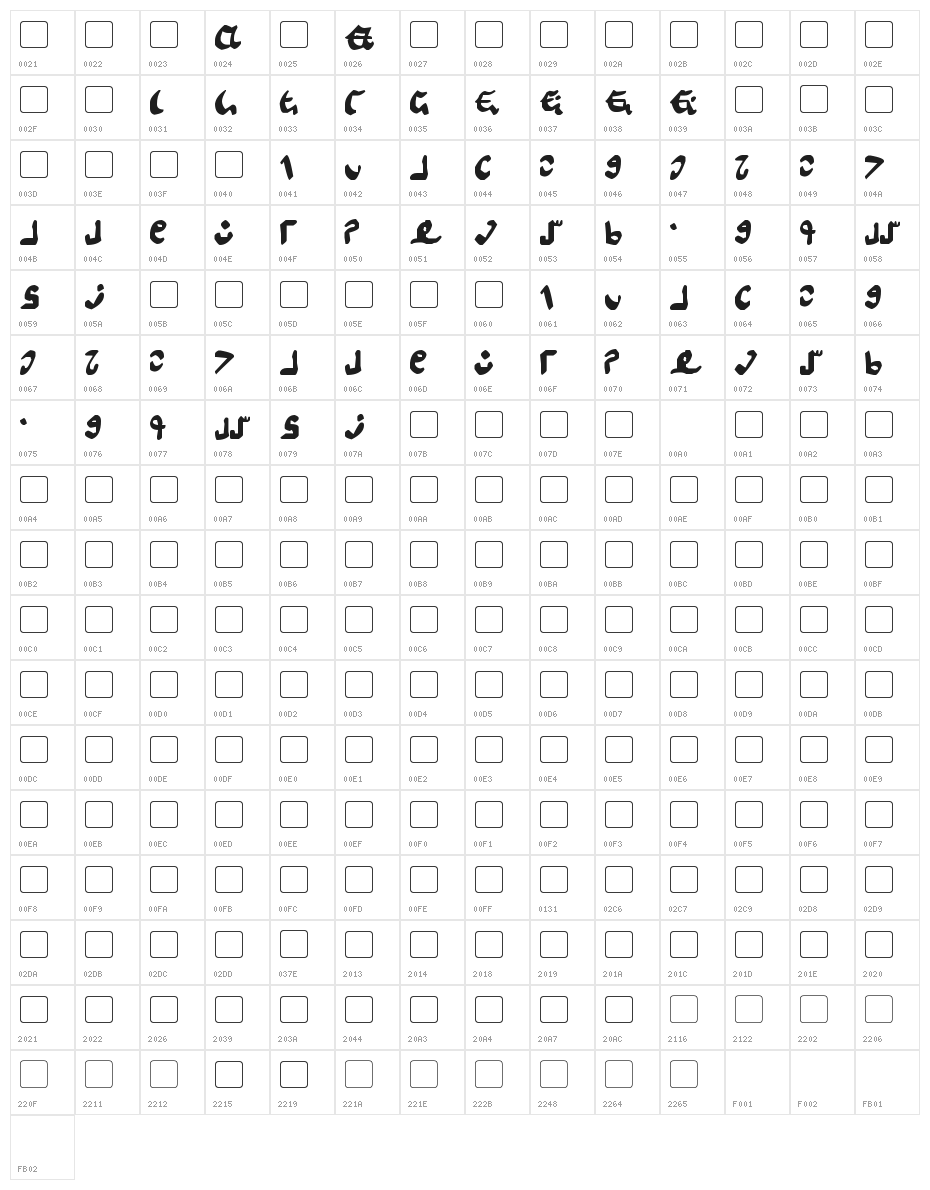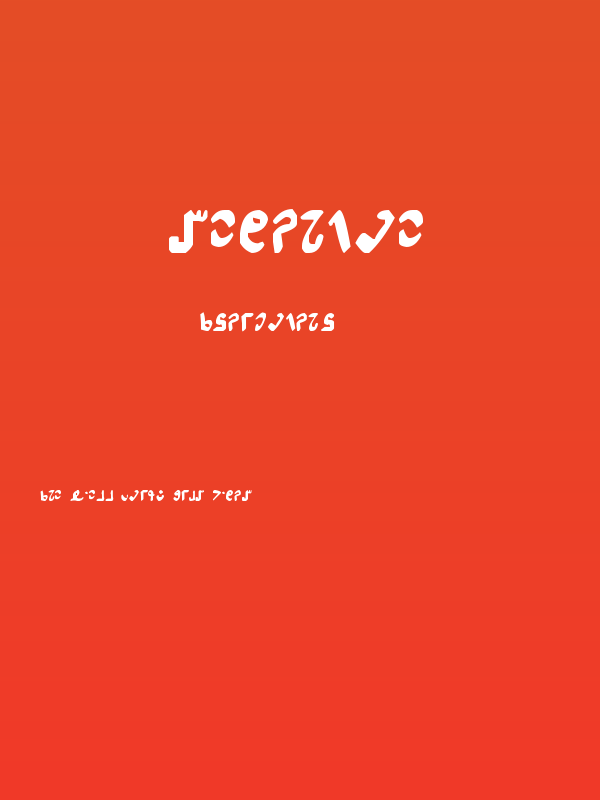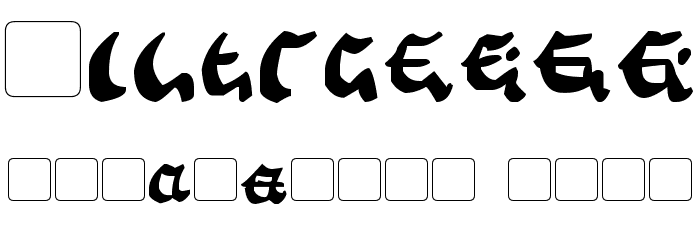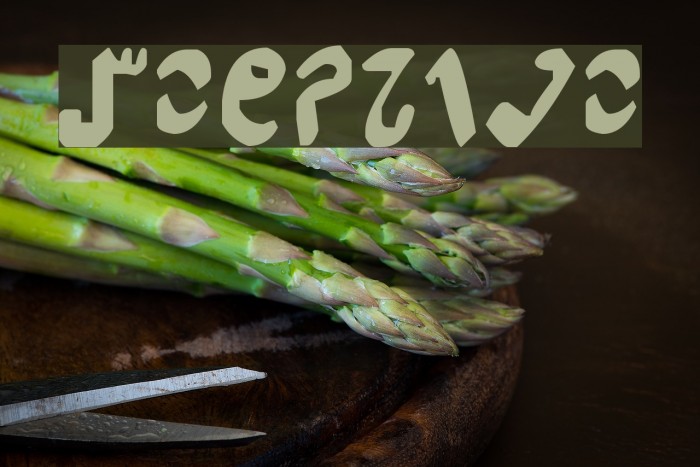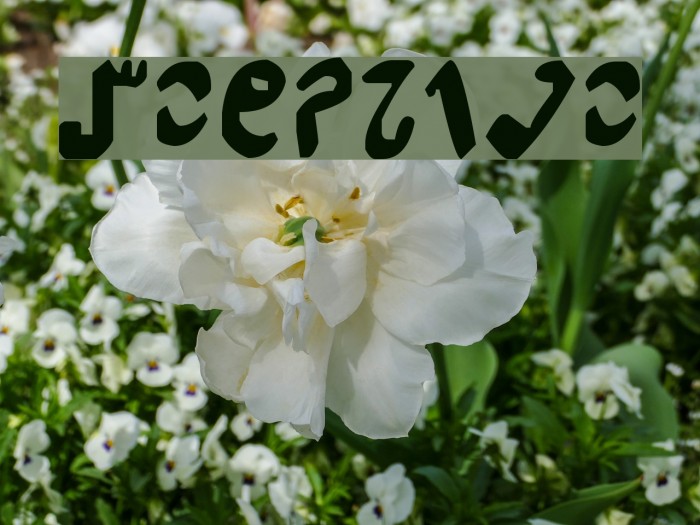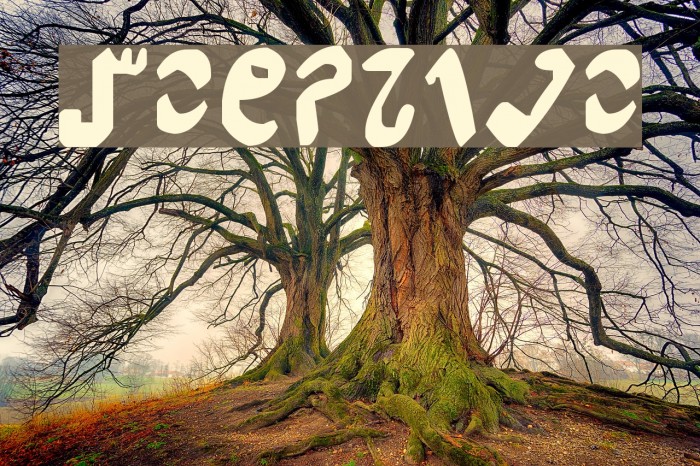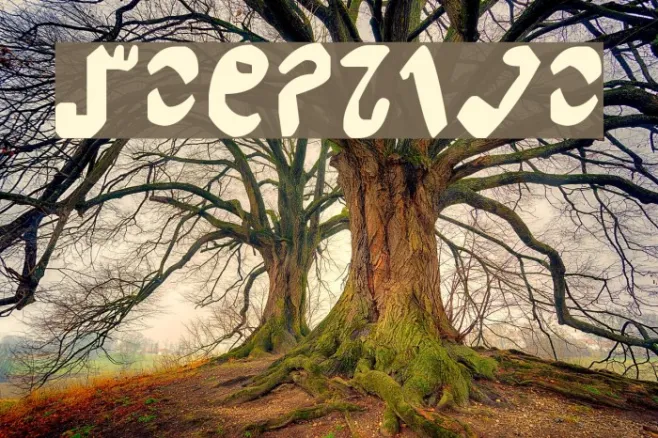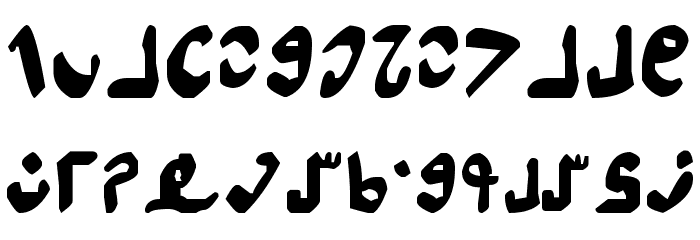
Semphari Font
Semphari Description
This font features a highly stylized and abstract design, characterized by its bold and thick strokes. The characters are uniquely shaped, with an artistic flair that resembles a blend of calligraphy and modern art. The letters have a fluid, almost organic form, with varying stroke widths that create a dynamic and eye-catching appearance. The overall look is both decorative and avant-garde, making it stand out in any design context. The font lacks traditional serifs and instead focuses on a freeform, expressive style that is both playful and sophisticated.
| Use Case | Logos, Posters, Artistic projects |
| Proposed Projects | Ideal for artistic projects, branding, posters, and any design that requires a unique and eye-catching typeface. |